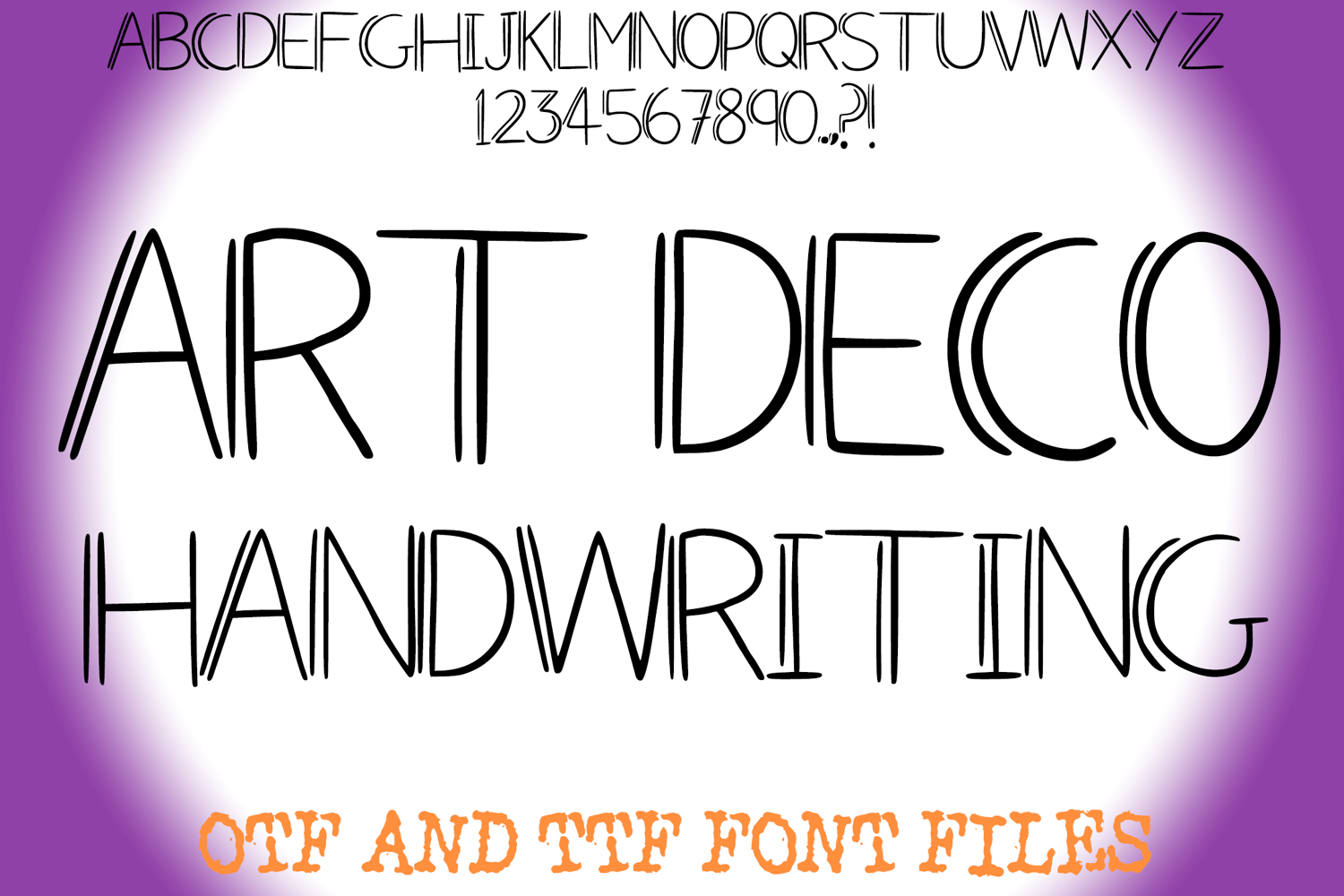
Step into a world of "Gatsby-meets-Journaling" with Art Deco Handwriting Font! This unique typeface blends the architectural elegance of the 1920s with a modern, hand-drawn sensibility.
The defining feature of this font is its stylized double-line vertical strokes, which add an instant touch of luxury and geometric flair to a clean, sans-serif base. Whether you are going for a high-end vintage look or a quirky, personalized aesthetic, this font offers the perfect balance of sophistication and charm.
Why Designers Love Art Deco Handwriting Font:
Double-Line Detail: The parallel vertical lines create a built-in "shadow" or "echo" effect that makes headers pop.
Highly Legible: Even with its retro flair, the characters remain clear and easy to read, making it ideal for both print and digital use.
Versatile Vibe: It can feel like a chalkboard menu one moment and a luxury boutique logo the next.
Ideal For:
Wedding & Event Stationery: Sophisticated invitations, place cards, and seating charts.
Branding & Logos: Perfect for boutique shops, cafes, and creative studios.
Digital Planning: Add a vintage touch to your GoodNotes or Notion headers.
Crafting & DIY: The clean, distinct lines are excellent for vinyl cutting on Cricut or Silhouette machines.